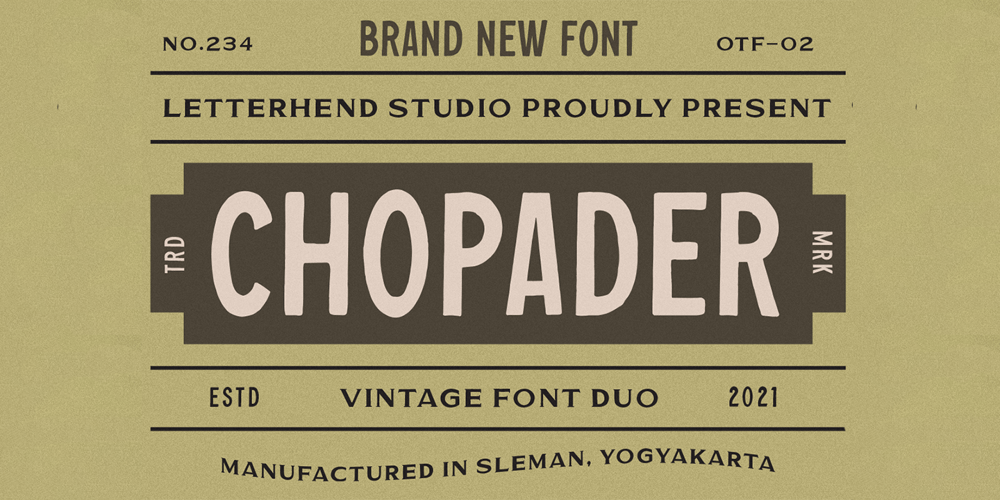
Chopader Font Family was designed by Hendry Juanda and published by Letterhend. Chopader contains 2 styles and family package options. Introducing, Chopader – a vintage sans serif font duo. Inspired by 50s 60s signages, this font made to bring back the good ol’ days. This type of font perfectly made to be applied especially in logo, headline, signage and the other various formal forms such as invitations, labels, logos, magazines, books, greeting / wedding cards, packaging, fashion, make up, stationery, novels, labels or any type of advertising purpose.Features : Two fonts (Thin and bold style) numbers and punctuation multilingual PUA encoded Only caps We highly recommend using a program that supports OpenType features and Glyphs panels like many of Adobe apps and Corel Draw, so you can see and access all Glyph variations.